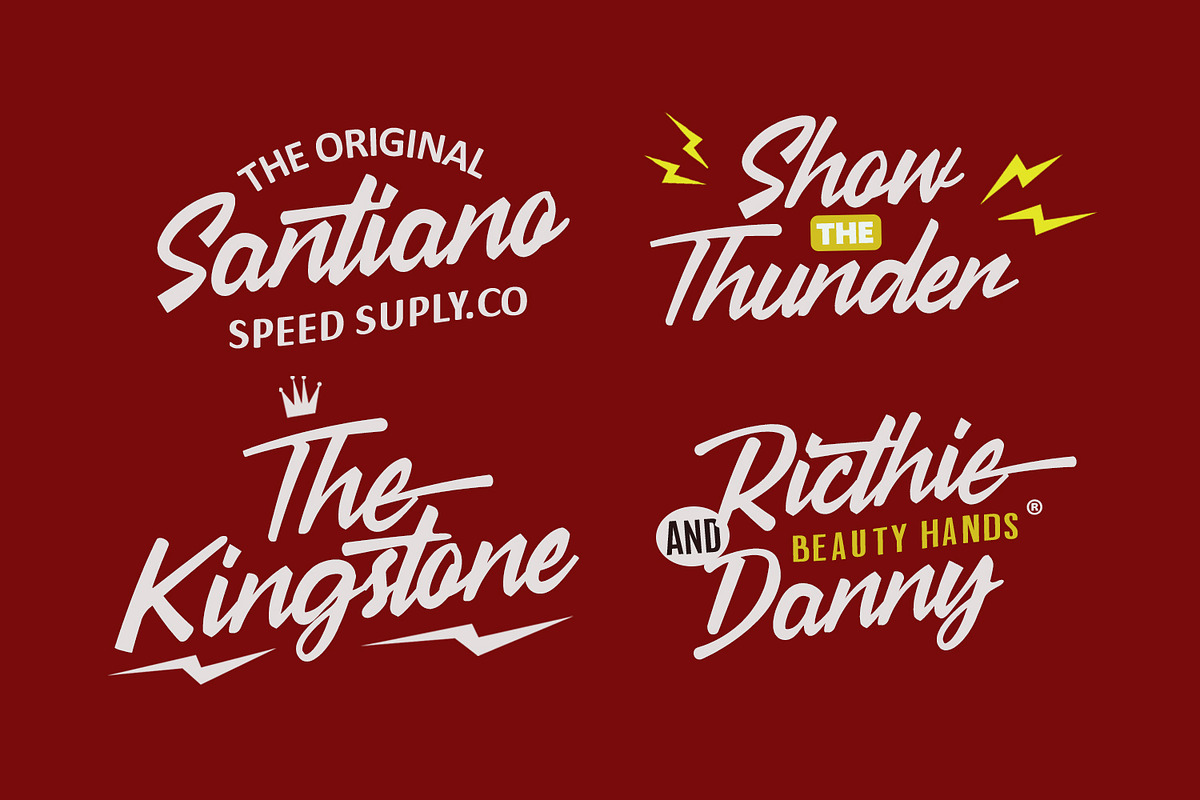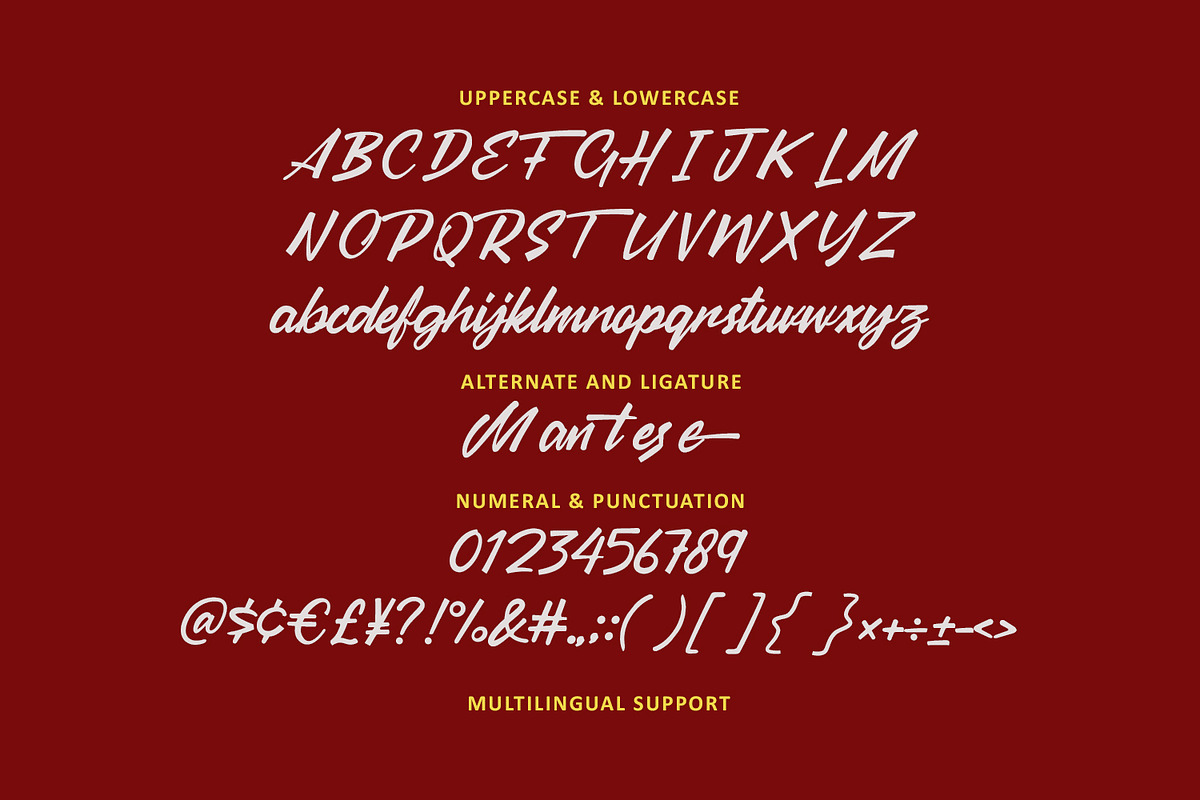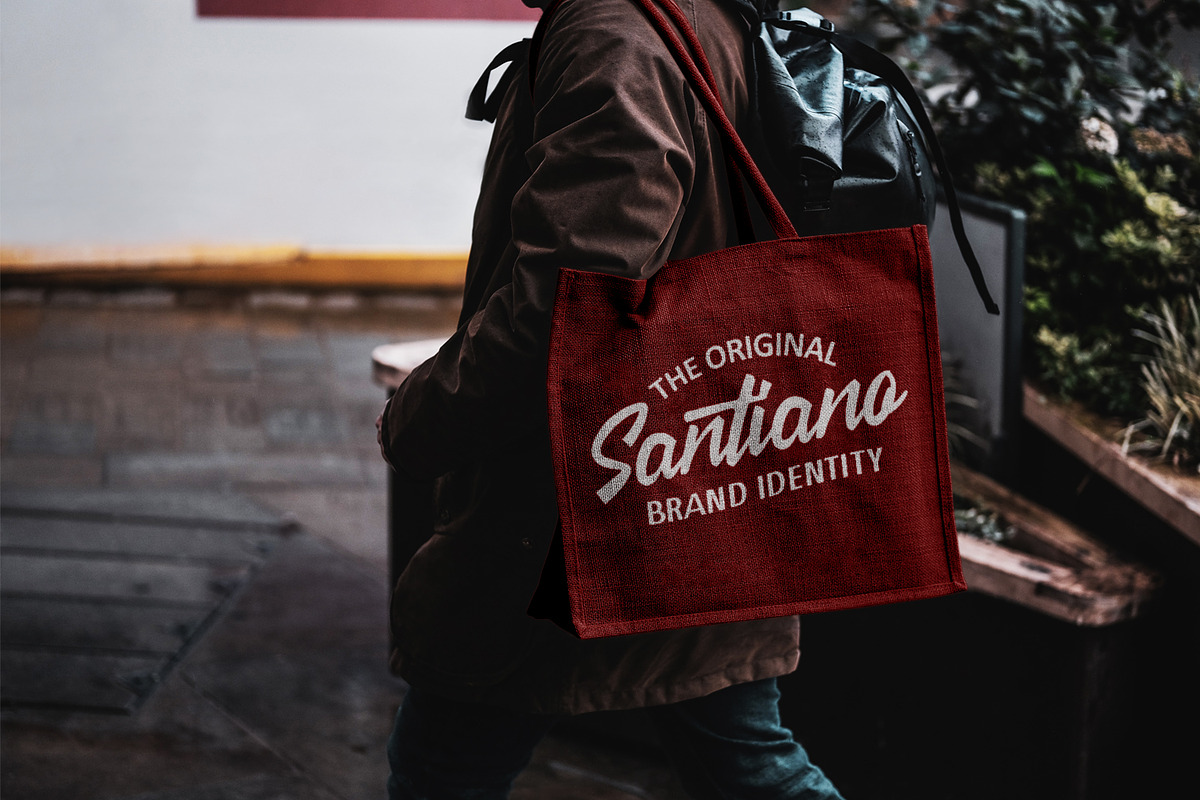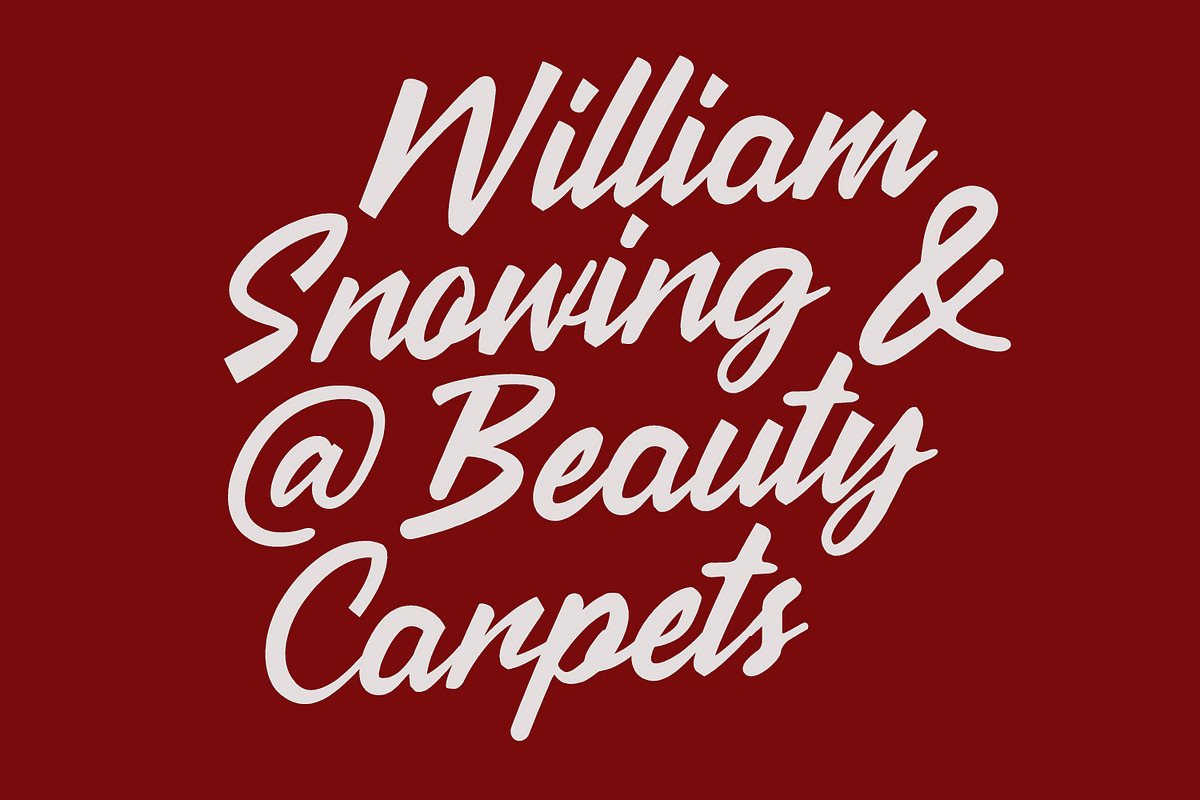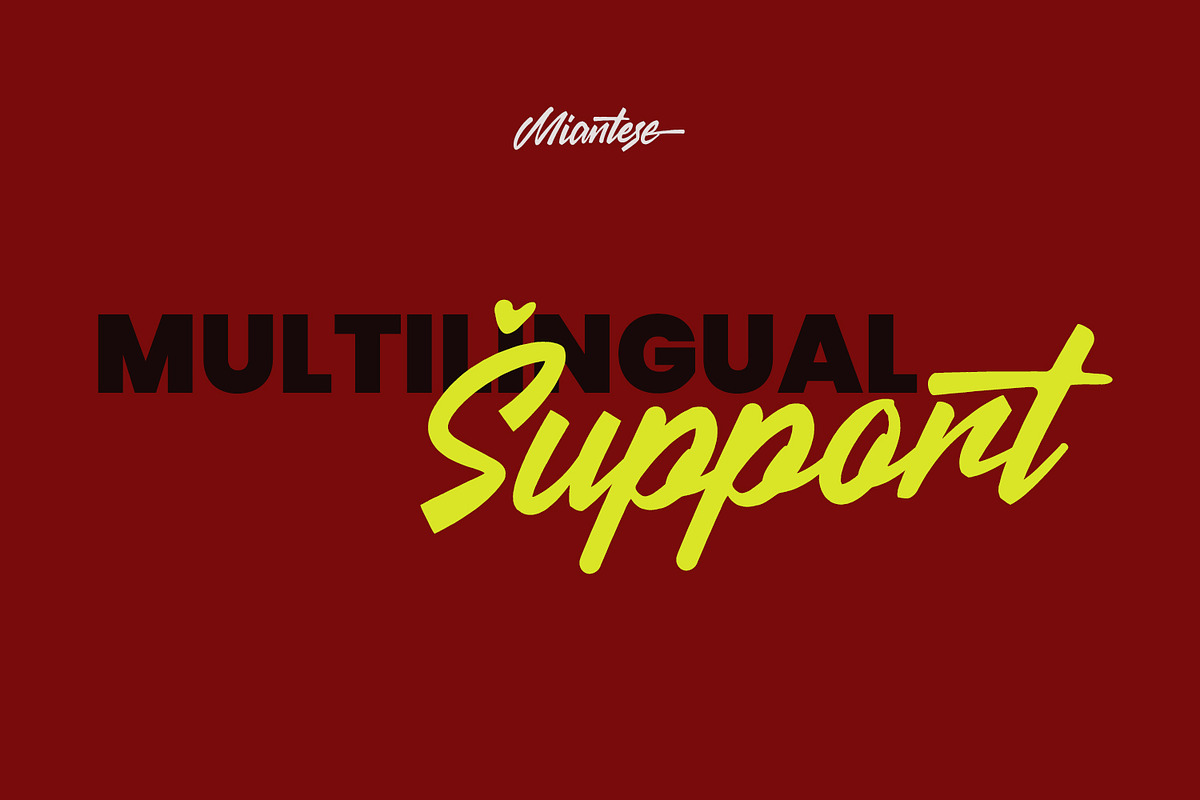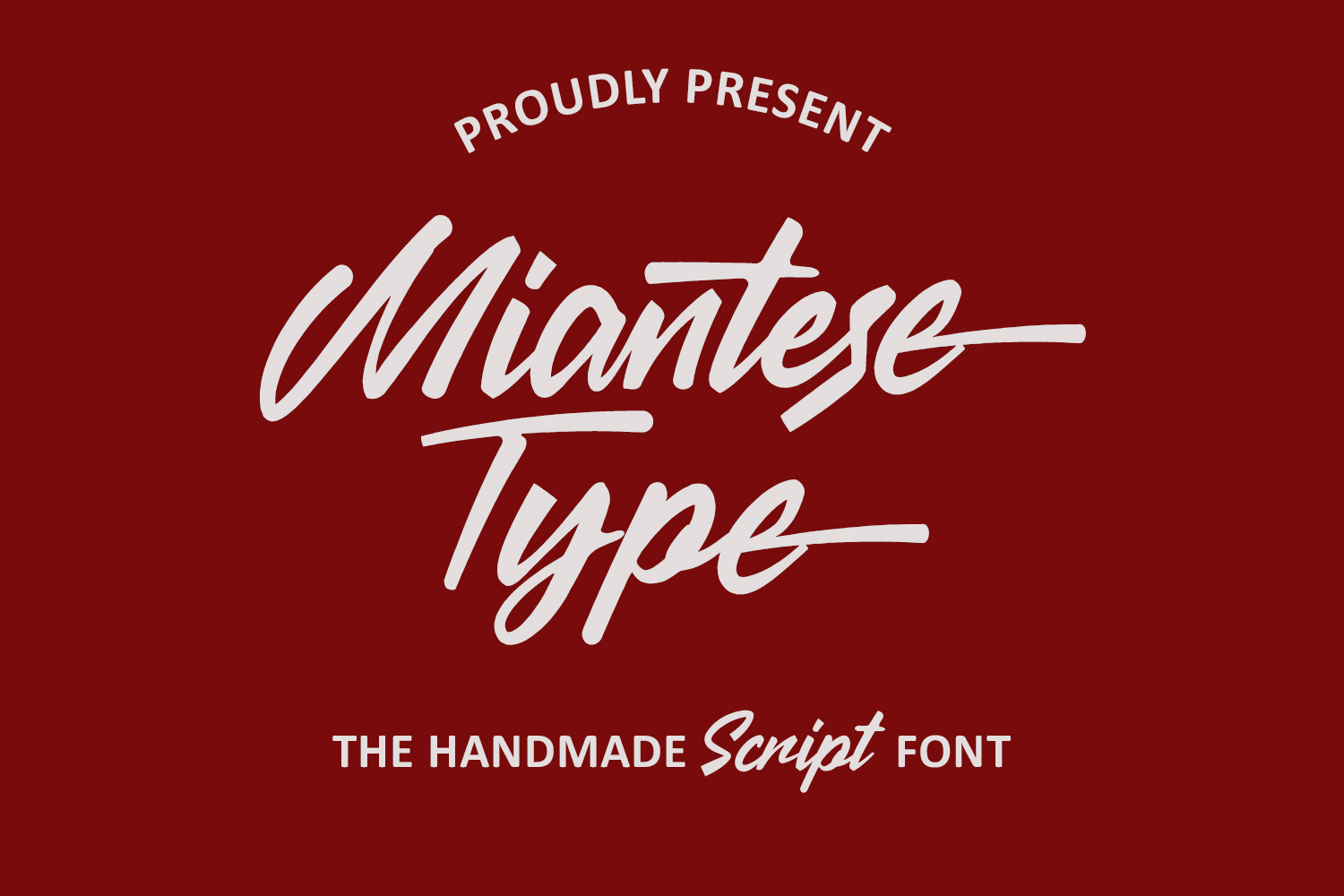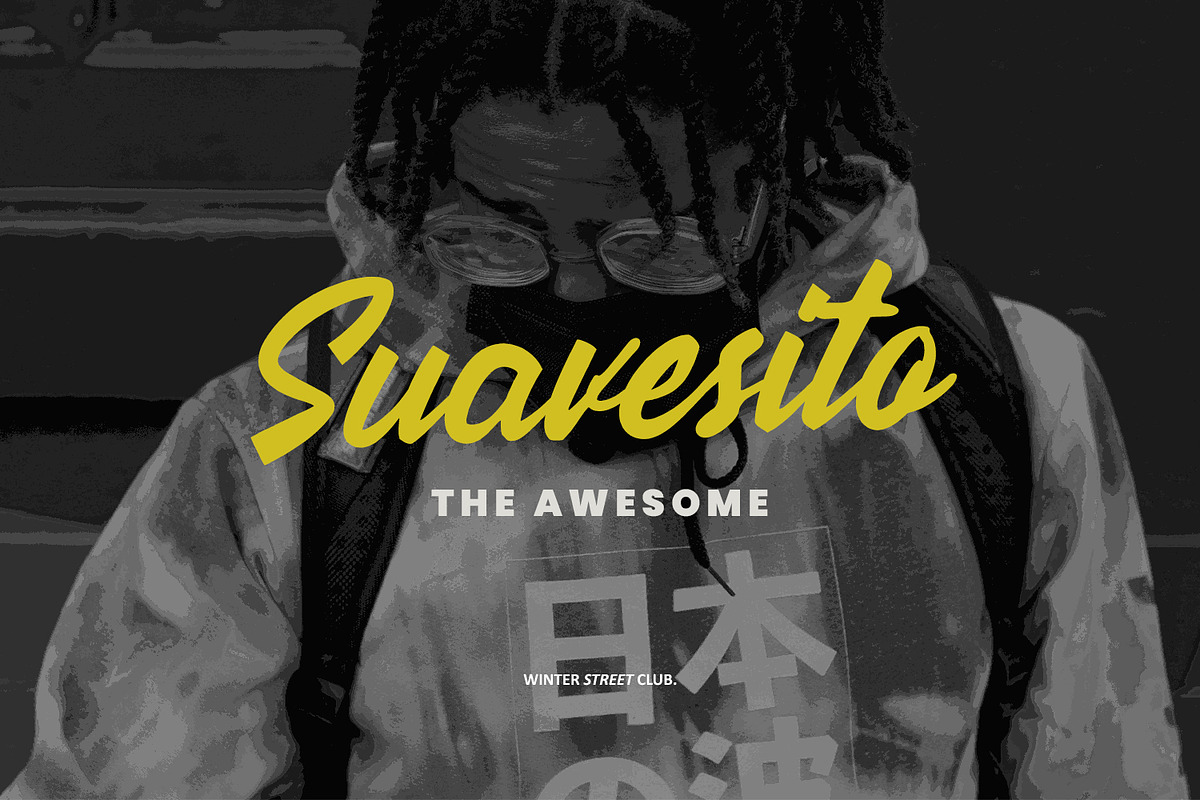
Miantese Handmade Script Font
Miantese is a handmade script display handwritten font. With bold stroke, fun character with a bit of alternate and ligature. To give you an extra creative work. Miantese font support multilingual more than 100+ language. This font is good for logo design, Social media, Movie Titles, Books Titles, a short text even a long text letter and good for your secondary text font with sans or serif. Make a stunning work with Miantese font.